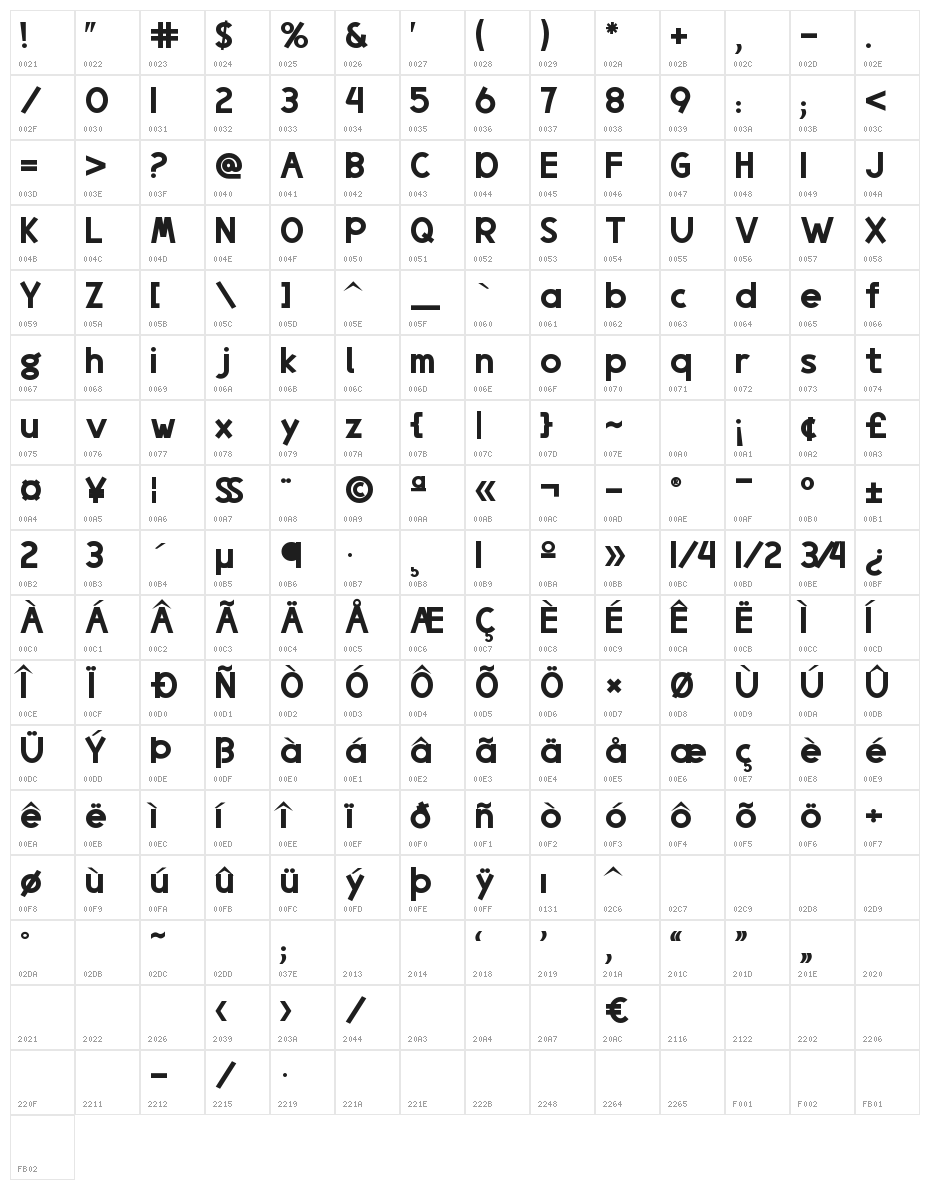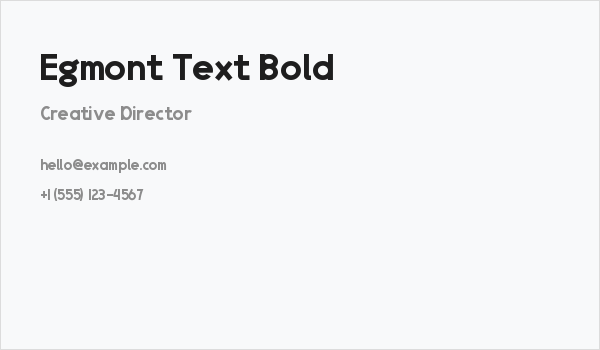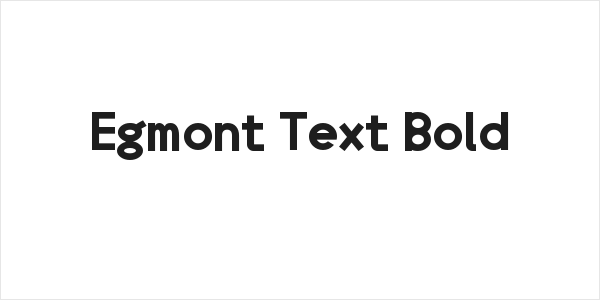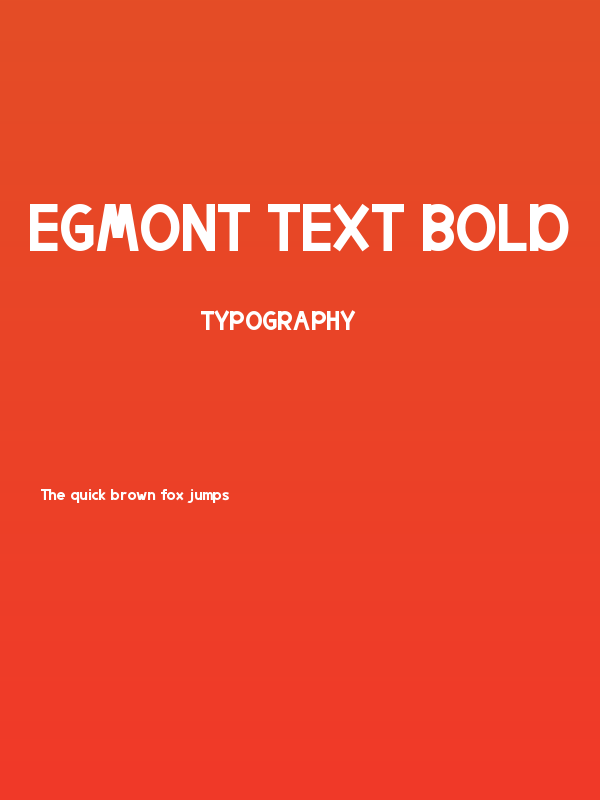
Egmont Text Bold Font
Egmont Text Bold Description
This font exhibits a bold and clean sans-serif style, characterized by its strong geometric shapes and uniform stroke widths. The uppercase letters are robust and impactful, while the lowercase letters maintain a consistent and harmonious appearance. The numerals are clear and legible, making them suitable for various applications. The special characters are well-defined, complementing the overall aesthetic of the typeface. Its boldness and clarity make it ideal for attention-grabbing headlines and modern design projects.
| Proposed Projects | Ideal for branding, advertising, posters, and any design requiring a modern and bold typeface. |